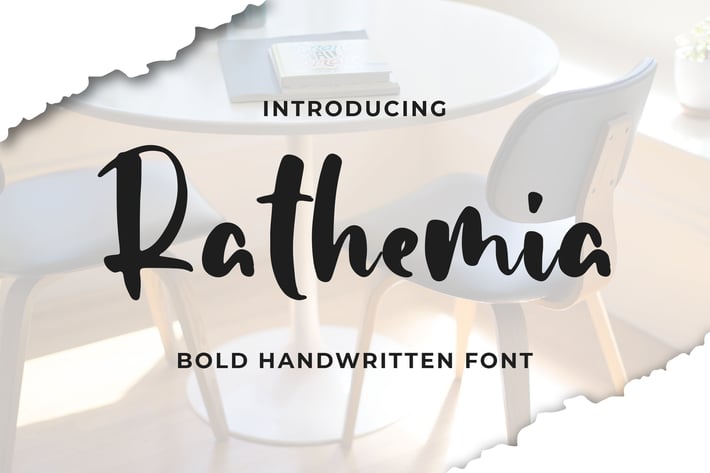
Rathemia - Bold Handwritten Font
Introducing of our new product the name is Rathemia Bold Handwritten Font. Rathemia inspired by modern calligraphy this font is a fun theme very good for signature, poster, fashion, wedding, branding etc
MULTILINGUAL ACCENT :
ŽžŠŒšŸÀÁÂÃÄÅÆÇÈÉÊËÌÍÎÏÐŁÑÒÓÔÕÖØÙÚÛÜÝßàáâãäåæçèéêëìíîïłñòóôõöøùúûüýÿ